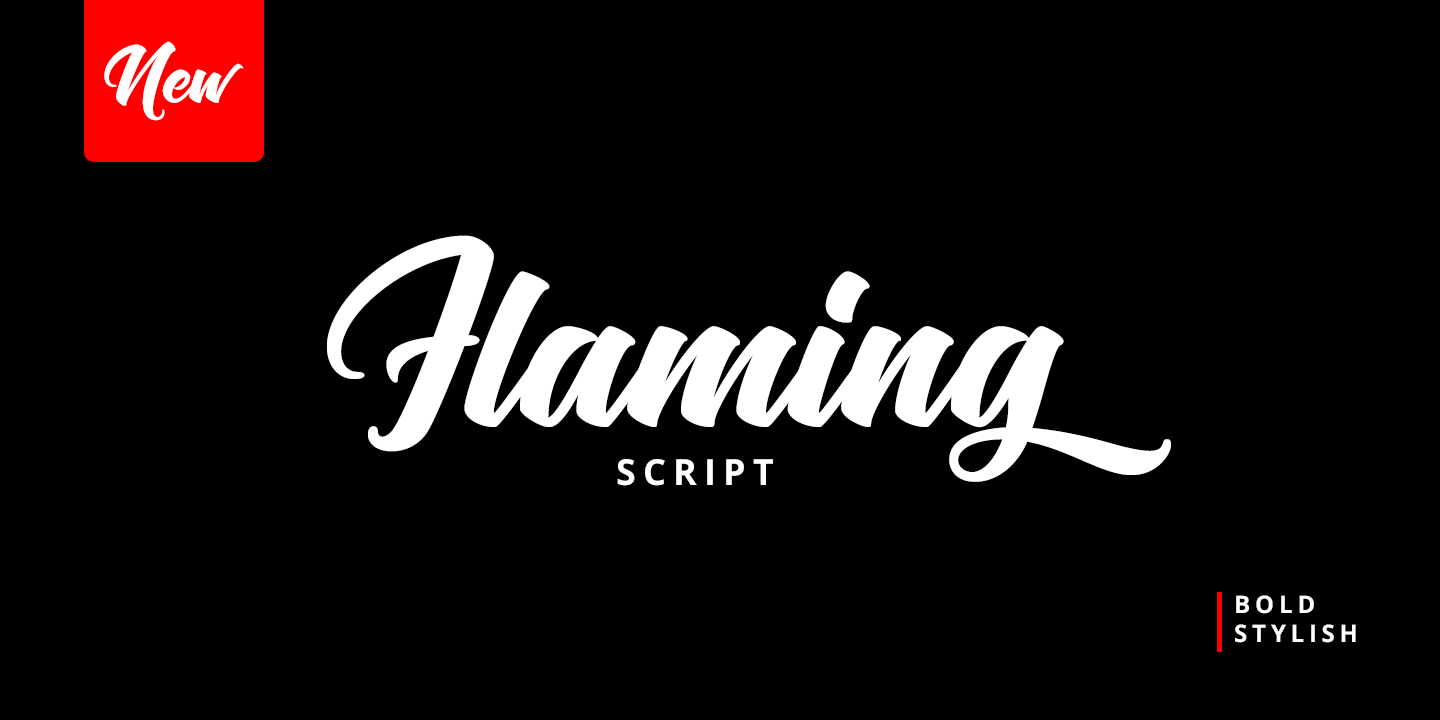
Flaming Font is a bold and dynamic display typeface that truly ignites a sense of intense energy, speed, and raw power. Its distinctive, often brush-like strokes or sharp, aggressive angles give it an unmistakable fiery character, making it an excellent choice for projects that demand a powerful visual impact and an edgy aesthetic. Imagine it perfect for high-octane sports branding, extreme gaming titles, rock concert posters, custom vehicle wraps, impactful advertising campaigns for energy drinks, or dramatic movie titles. This font excels in environments where immediate recognition, a robust visual identity, and an unmistakable sense of urgency are paramount. It’s particularly effective for conveying confidence, excitement, and an undeniable sense of bold originality, ensuring your message not only stands out but also resonates with a powerful and memorable energy.
What makes Flaming Font truly exciting is its fearless approach to typography, offering a visually commanding presence that feels both aggressive and intelligently designed. Its assertive yet often subtly unique letterforms create a striking aesthetic that is both memorable and highly functional, especially in display settings. This font isn't just about displaying text; it's about making a powerful declaration, injecting your designs with a sense of purpose and cutting-edge sophistication. It has a powerful ability to feel both incredibly strong and surprisingly versatile, making it an ideal tool for designers who want their work to convey strength, impact, and a truly memorable visual experience. Flaming Font Free Download empowers brands and creatives to project an image of unwavering confidence and forward momentum.
The Flaming Font family typically offers a range of weights and styles to ensure maximum versatility for diverse design projects. You'll often find it includes a spectrum from regular to bold and even ultra-bold or black weights, providing robust options for typographic hierarchy and emphasis. Corresponding italic styles may also be available, allowing for dynamic variations in text presentation. This extensive family ensures that Flaming Font can adapt seamlessly to any design challenge, from powerful headlines that demand attention to clear, impactful sub-headings, all while maintaining a consistent and harmonious visual language. Its broad character set usually covers a wide range of Latin characters, numbers, and extensive punctuation, making it suitable for international projects and complex textual layouts.